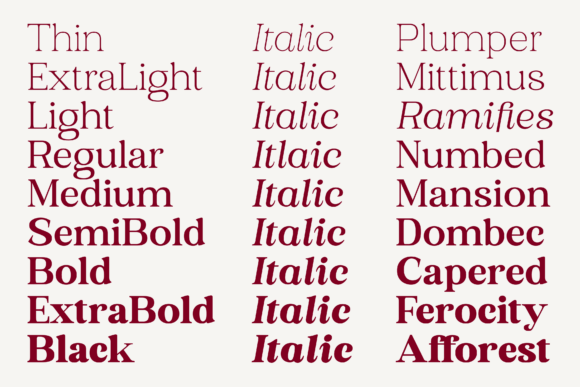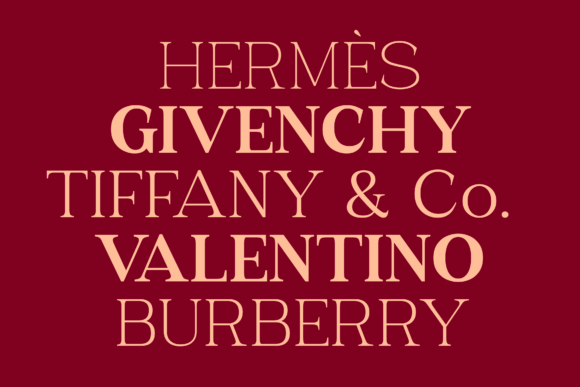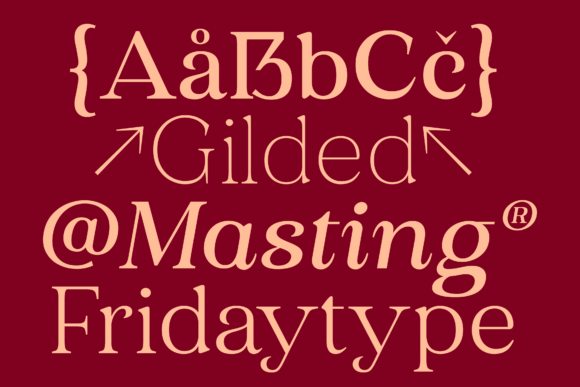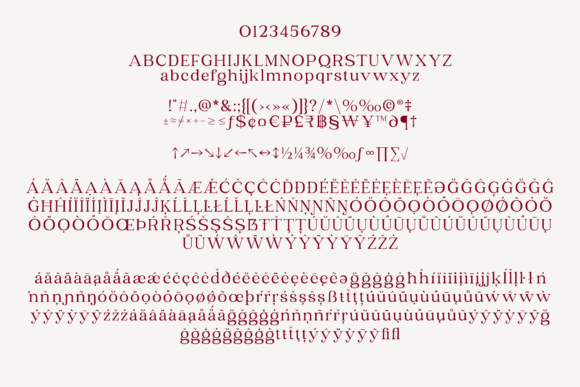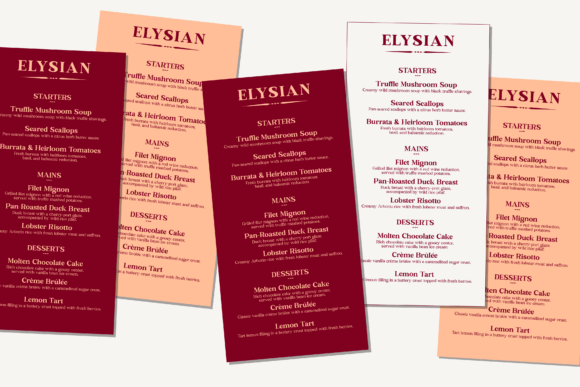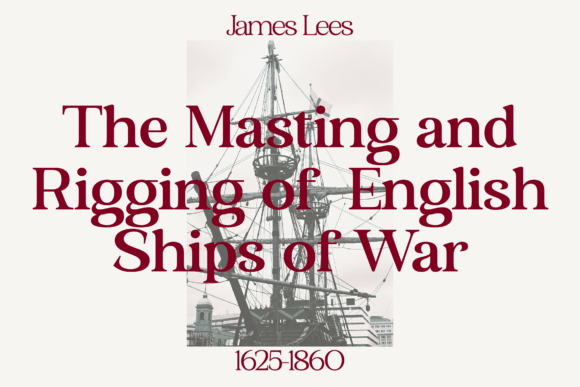
Gilded Masting – A Classy Serif Font for Luxury Branding
In the world of typography, a well-crafted font can elevate a brand’s identity and make it stand out in a crowded market. Gilded Masting, a refined serif display font family, is the epitome of sophistication and elegance. With its two distinct styles – a bold Regular and a sleek, classy Italic – this versatile font is perfect for various applications, from branding and packaging to web design and editorial work.
The Essence of Gilded Masting
Gilded Masting is a masterclass in typographic design, blending traditional serif elements with a modern twist. The bold Regular style delivers impact, making it ideal for headlines, titles, and logos that demand attention. On the other hand, the classy Italic style adds refinement and poise, perfect for luxury branding and creative projects that require a touch of timeless beauty.
One of the standout features of Gilded Masting is its versatility. This font family can be used across various mediums, including:
- Branding and Packaging: Create stunning logos, labels, and packaging that exude exclusivity and professionalism.
- Web Design: Elevate your website’s typography with Gilded Masting’s elegant and refined styles, perfect for headers, titles, and emphasis.
- Editorial Work: Add a touch of sophistication to your publications, articles, and blog posts with Gilded Masting’s classy and refined serif style.
Timeless Beauty and Sophistication
Gilded Masting’s design is rooted in traditional serif typography, yet its refined and elegant aesthetic makes it perfect for modern design applications. The font’s classic feel ensures that it won’t go out of style, making it an excellent investment for designers and crafters who value timeless beauty.
Luxury Branding and Creative Projects
Gilded Masting is specifically designed to cater to luxury branding and creative projects that demand exclusivity and professionalism. Whether you’re working on a high-end fashion brand, a premium product, or a creative project that requires a touch of elegance, this font family is the perfect choice.
Key Features of Gilded Masting
- Two distinct styles: Bold Regular and sleek, classy Italic.
- Refined serif design: Elegant and sophisticated, perfect for luxury branding and creative projects.
- Versatile: Suitable for various applications, including branding, packaging, web design, and editorial work.
- Timeless beauty: Classic feel ensures that the font won’t go out of style.
Gilded Masting is a classy serif font family that embodies sophistication and elegance. Its versatility, timeless beauty, and refined aesthetic make it perfect for luxury branding and creative projects. Whether you’re a designer, crafter, or simply someone who appreciates beautiful typography, Gilded Masting is an excellent addition to your font library.